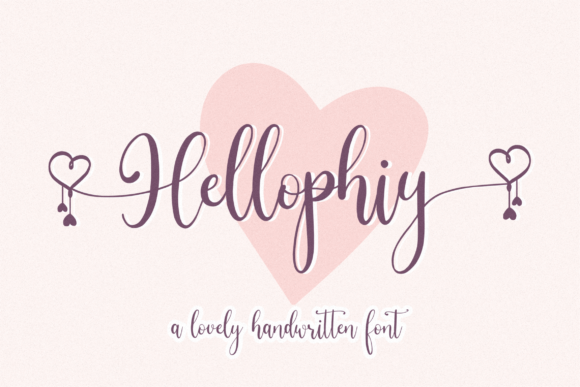
Journey into the world of Hellophiy, a font born from the desire to captivate and enchant your designs. Its graceful curves and elegant lines were carefully crafted to evoke a sense of sophistication and charm, making it the perfect choice for those seeking to make a lasting impression.
With Hellophiy, you can transform ordinary words into captivating expressions that dance across the page. Its versatility makes it ideal for a wide range of projects, from product packaging and branding to social media posts and wedding invitations. Whether you're a seasoned designer or just starting out, Hellophiy is your key to unlocking a world of creative possibilities.
Imagine your products adorned with Hellophiy's distinctive charm, attracting attention and creating a sense of desire among your customers. Or envision your social media posts popping off the screen, captivating your audience with their elegant allure. Hellophiy is more than just a font; it's a tool for creating a visual masterpiece that sets you apart from the ordinary.
Experience the beauty of Hellophiy today and embark on a journey that will leave a lasting impact on your designs. Let your words take center stage, adorned with Hellophiy's timeless grace, and watch as they transform into a visual symphony that captivates and inspires.